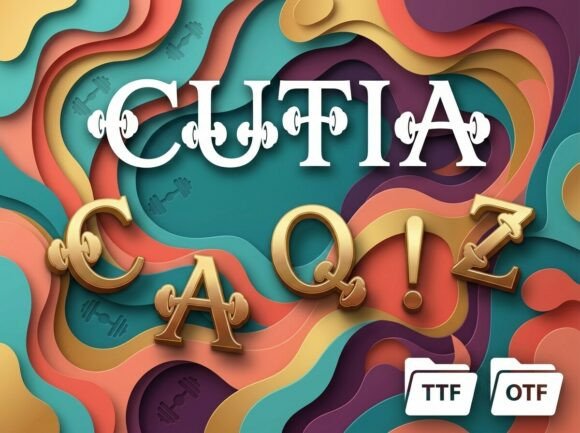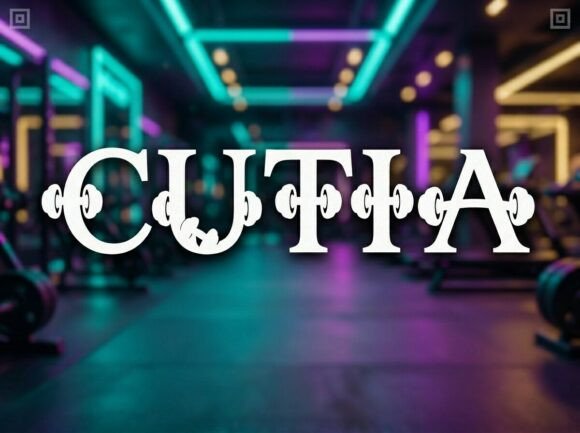
Introducing Cutia Font: The Ultimate Display Font for Creative Minds
Are you tired of using the same old fonts for your designs? Do you want to make a statement and stand out from the crowd? Look no further than Cutia Font, a stunning decorative display font that’s designed to be the center of attention. With its unique artistic elements and strong visual personality, this font is perfect for creators who want to break away from the ordinary and add a touch of elegance to their work.
What Makes Cutia Font Special?
Cutia Font is a versatile font that’s specifically designed for bold headlines, artistic logos, and creative packaging. Its professional and polished finish makes it perfect for a wide range of design projects, from branding and advertising to packaging and signage. Whether you’re a graphic designer, a crafty DIY enthusiast, or a marketing professional, Cutia Font is the perfect choice for anyone looking to add a touch of sophistication to their work.
Key Features of Cutia Font
- Unique Artistic Elements: Cutia Font features unique artistic elements that set it apart from other fonts. Its decorative strokes, swashes, and flourishes add a touch of elegance and sophistication to any design.
- Strong Visual Personality: This font has a strong visual personality that’s sure to grab attention. Its bold and eye-catching design makes it perfect for headlines, logos, and other display text.
- Professional and Polished Finish: Cutia Font has a professional and polished finish that’s perfect for high-end designs. Its smooth lines and curves make it easy to read and visually appealing.
Important Note: All-Caps Display Typeface
IMPORTANT NOTE BEFORE PURCHASE: Cutia Font is an ALL-CAPS (Uppercase Only) display typeface. It does not include lowercase letters. It’s specifically designed for high-impact headlines, logos, and decorative initials where every letter is a work of art.
Why Choose Cutia Font?
There are many reasons why Cutia Font is the perfect choice for designers and crafters:
- Unique and Eye-Catching: Cutia Font is a unique and eye-catching font that’s sure to grab attention.
- Versatile: This font is versatile enough for use on a wide range of design projects, from branding and advertising to packaging and signage.
- Professional and Polished: Cutia Font has a professional and polished finish that’s perfect for high-end designs.
Cutia Font is a stunning decorative display font that’s perfect for creators who want to break away from the ordinary and add a touch of elegance to their work. With its unique artistic elements, strong visual personality, and professional and polished finish, this font is sure to grab attention and make a statement. Whether you’re a graphic designer, a crafty DIY enthusiast, or a marketing professional, Cutia Font is the perfect choice for anyone looking to take their designs to the next level.